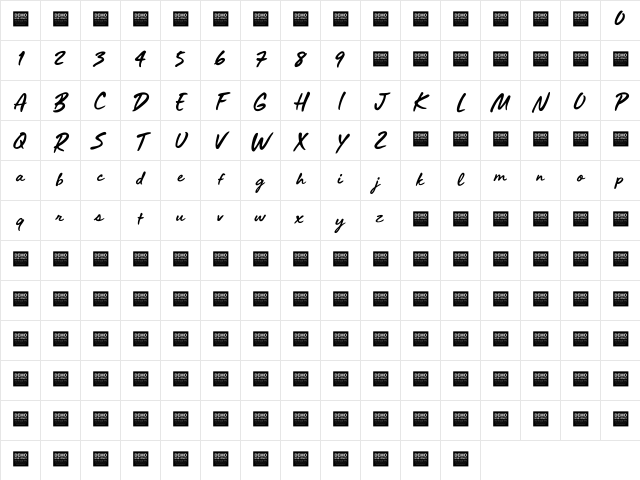
Complete Stone Blue - Demo Regular glyph index. Displaying only characters natively supported by Stone Blue - Demo Regular font.
Stone Blue - Demo is a composed and adaptable typeface that performs quietly and consistently across a wide range of design contexts.